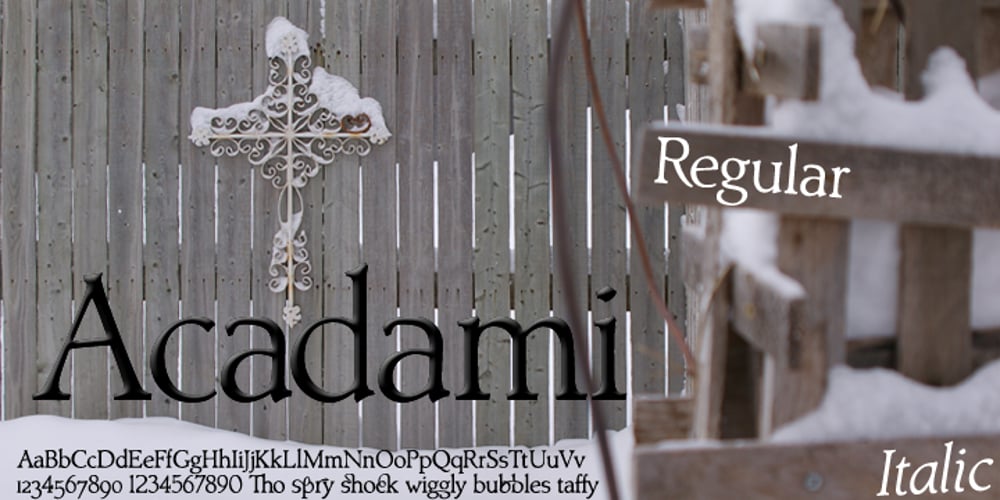
Acadami Font Family was designed by David Bergsland and published by Hackberry Font Foundry. Acadami contains 2 styles and family package options. Acadami is an experiment toward what will hopefully be my masterwork (probably named Hackberry). It’s also the font used as I get used to FontLab 5. The serifs are stronger and sharper. It’s modified with the feel of my memory of Century Schoolbook (without ever looking at CB for a reference.